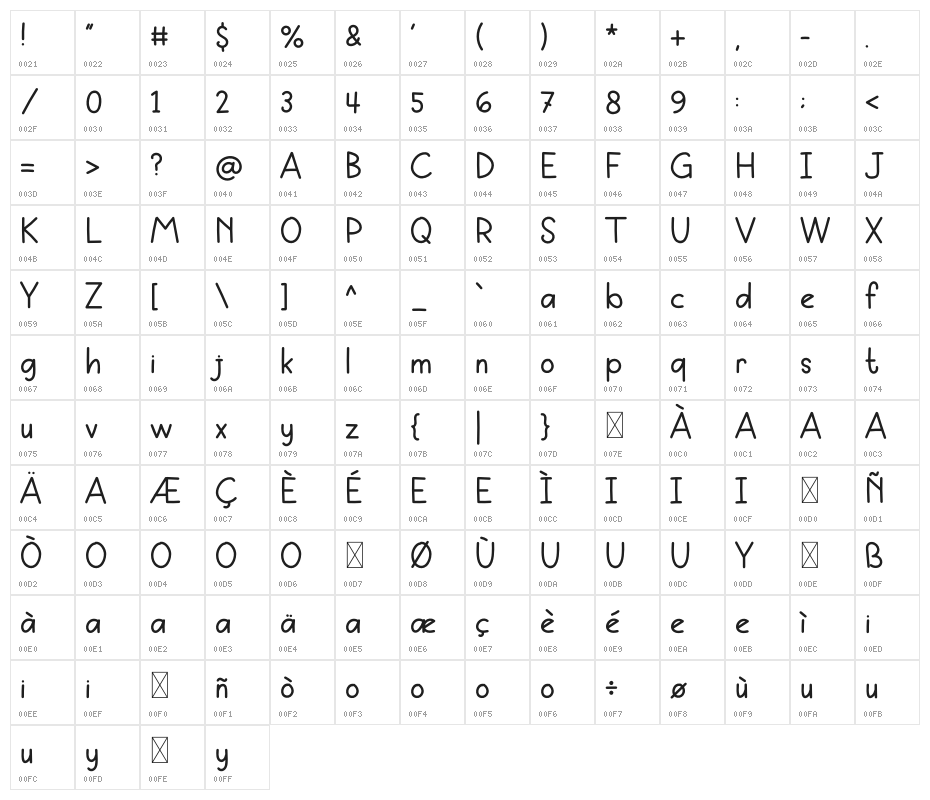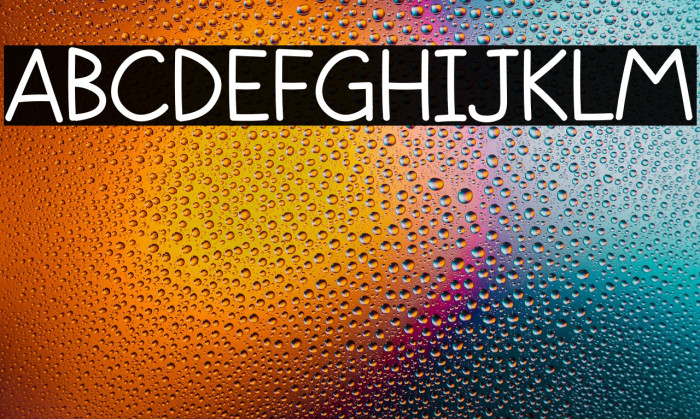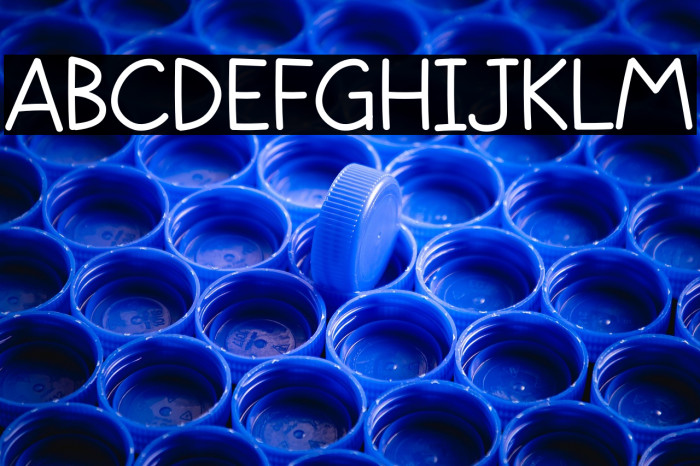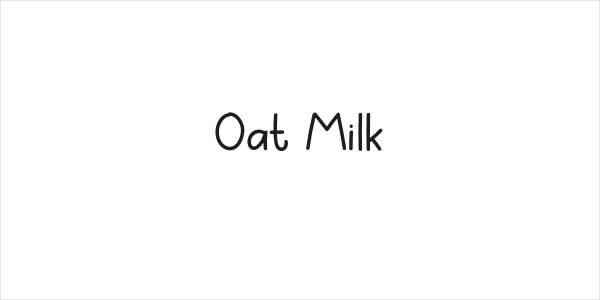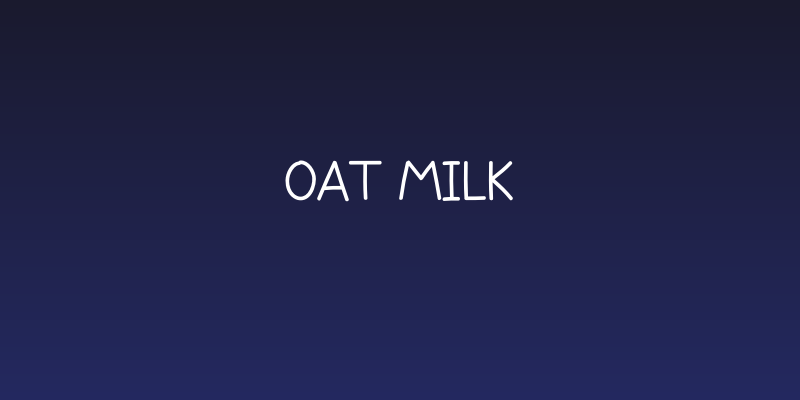
Oat Milk Font
Oat Milk Description
This font features a playful and casual handwritten style, characterized by its rounded and slightly irregular letterforms. The uppercase and lowercase letters maintain a consistent flow, with smooth curves and a friendly appearance. The numerals are clear and easy to read, complementing the overall informal aesthetic. Special characters are well-integrated, maintaining the font's cohesive look. This font exudes a warm and approachable vibe, making it suitable for projects that require a personal touch.
| Use Case | Headlines, Informal text, Branding |
| Proposed Projects | Ideal for children's books, greeting cards, informal invitations, and playful branding. |